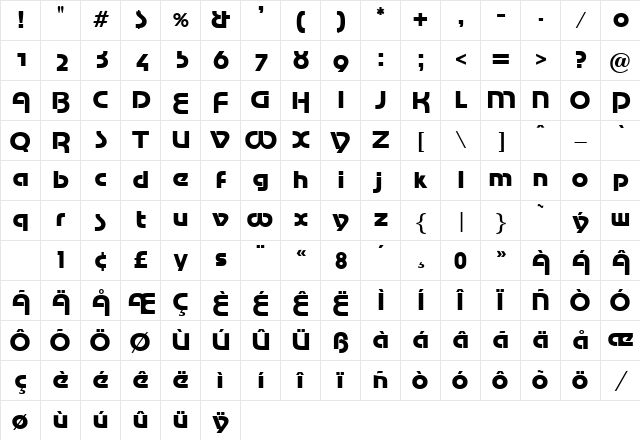
Marina DB Regular
Design Context for Marina DB
Marina DB is a composed and adaptable typeface that performs quietly and consistently across a wide range of design contexts.